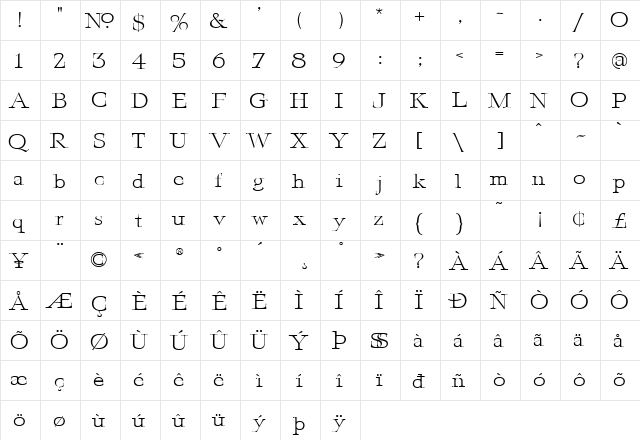
LHF Fineline Roman Regular
Design Context for LHF Fineline Roman Typeface
LHF Fineline Roman offers clean, dependable letterforms without strong stylistic allegiance, making it a practical choice for designers who need flexibility.